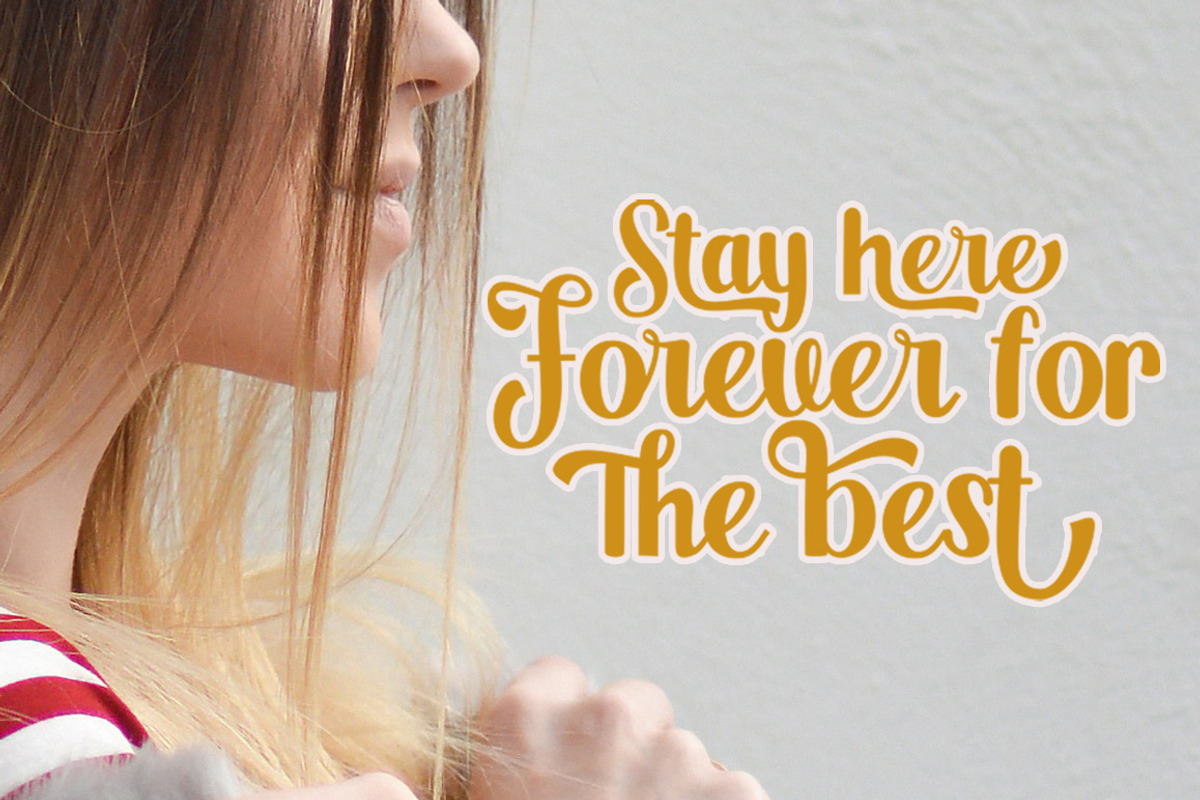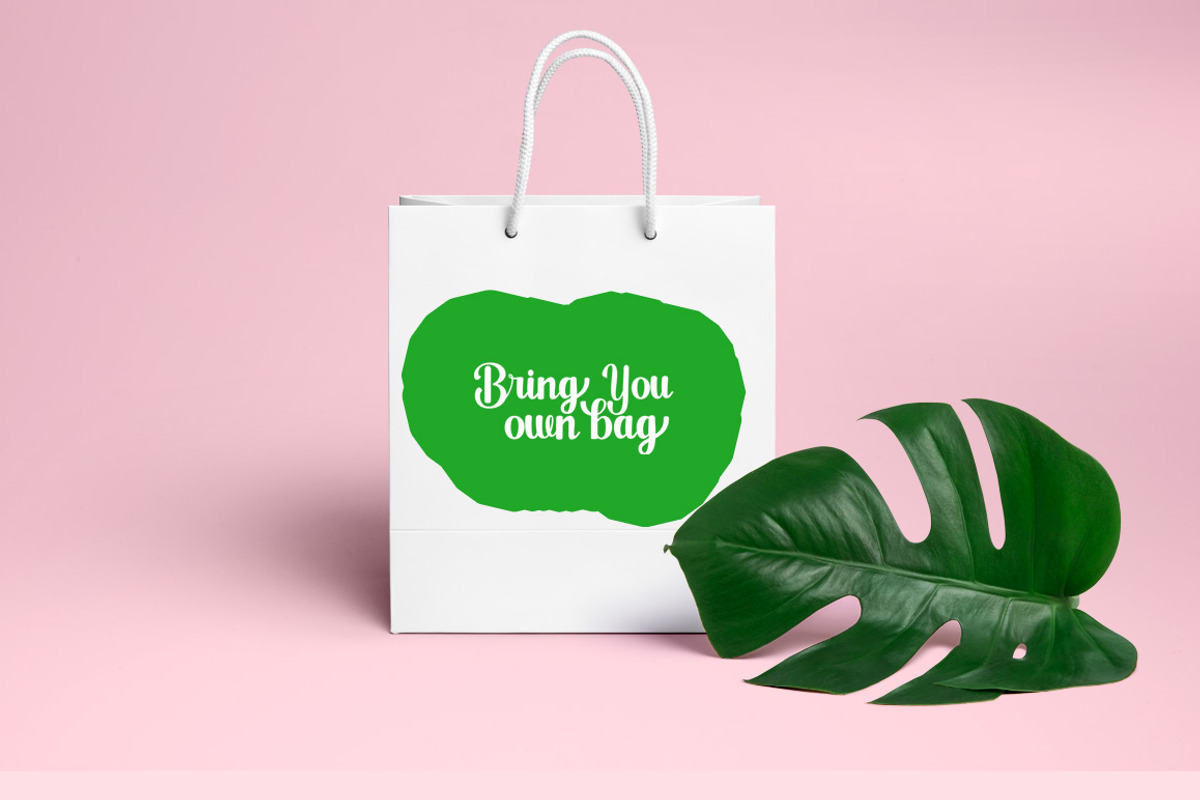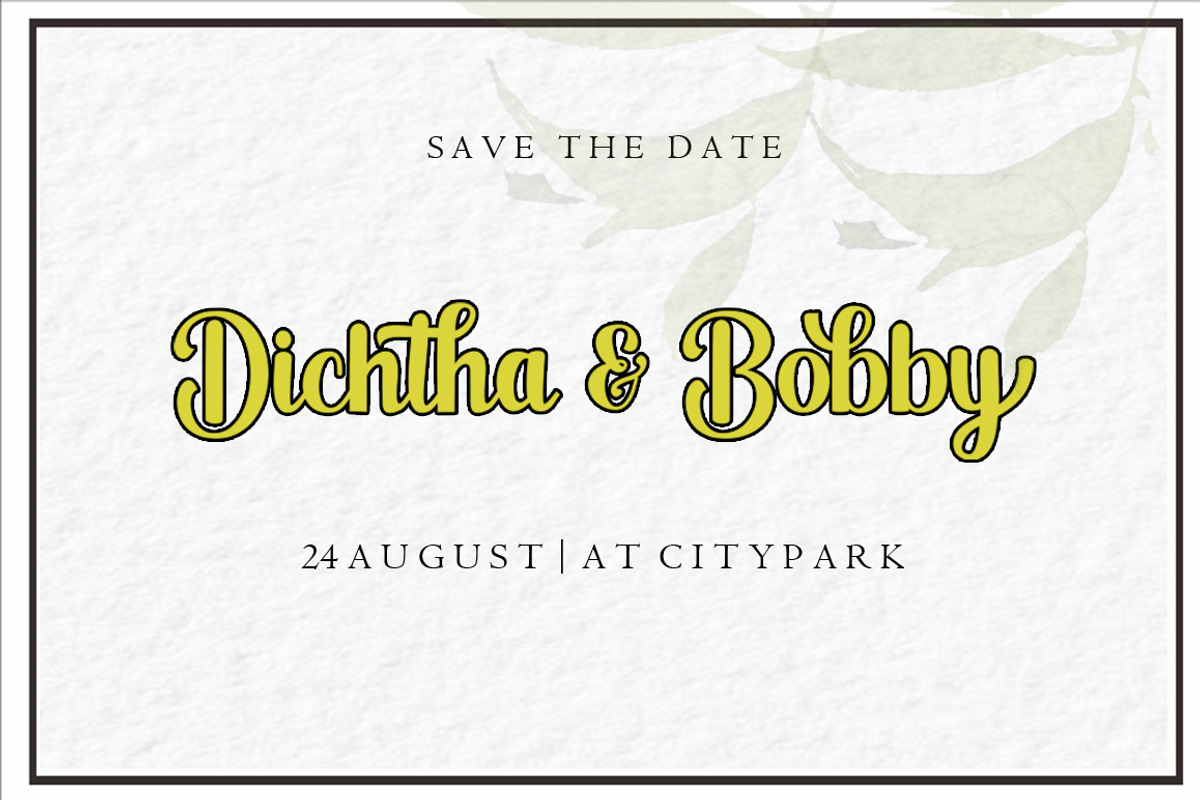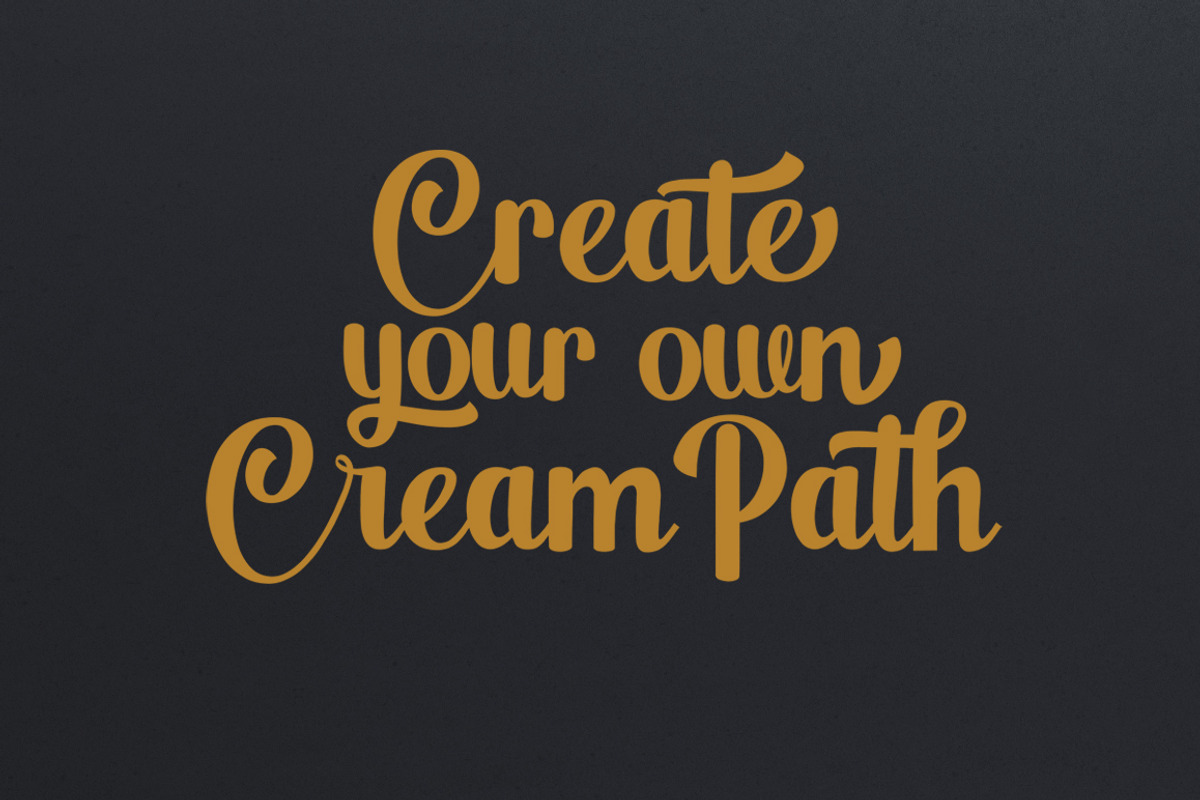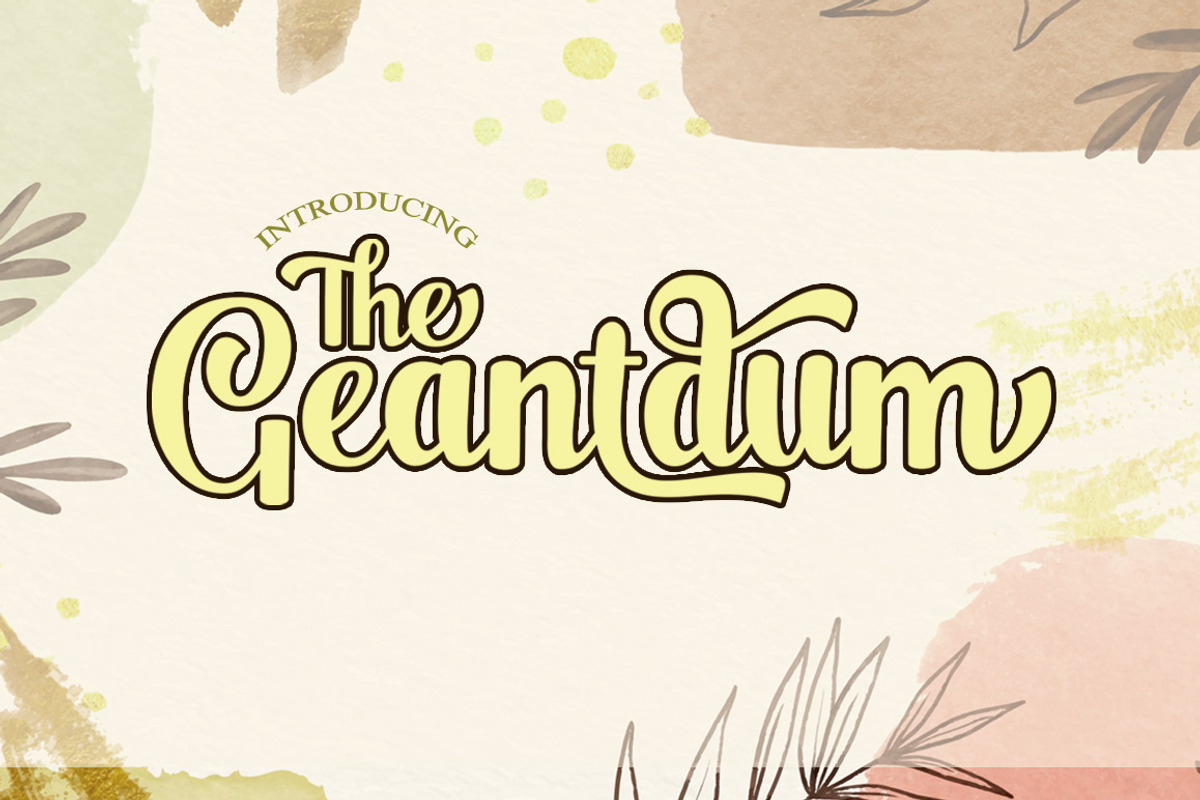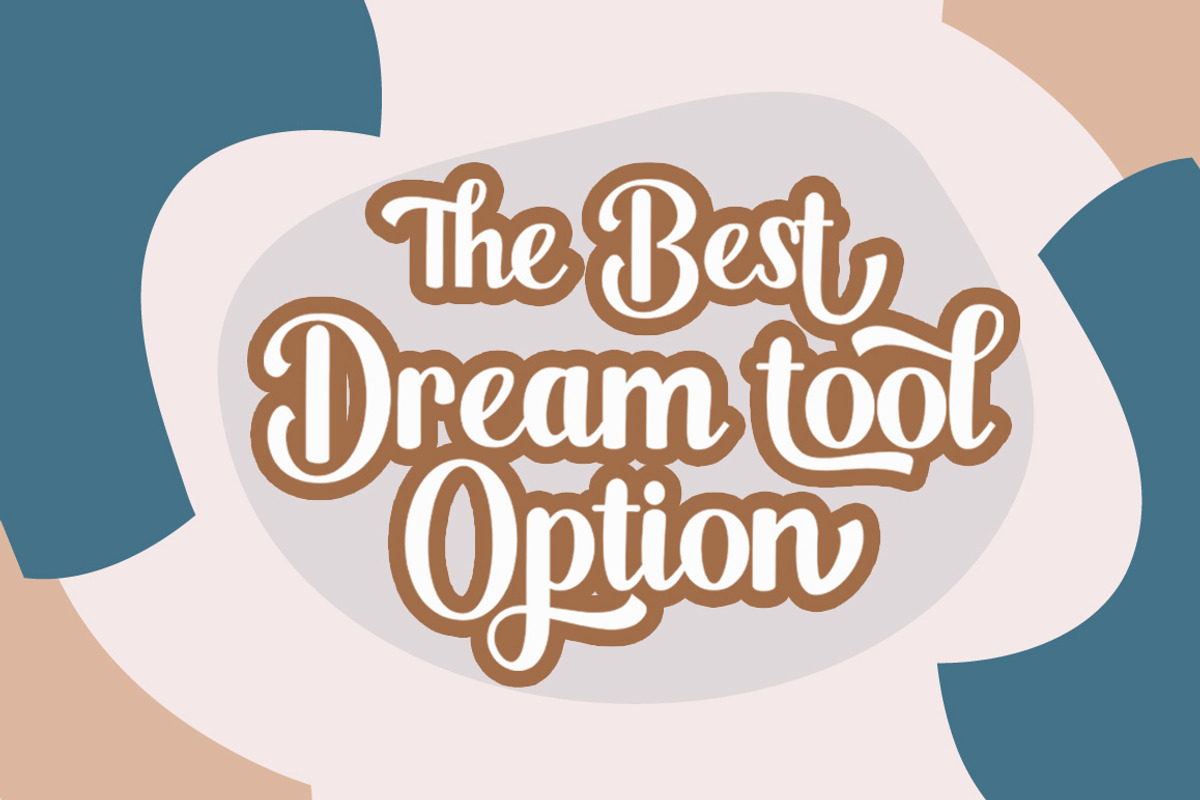
The Geantdum
The Geantdum Script is modern script font, every single letters have been carefully crafted to make your text looks beautiful. With modern script style this font will perfect for many different project ex: quotes, blog header, poster, wedding, branding, logo, fashion, apparel, letter, invitation, stationery, etc.
The Geantdum Script including alternate glyph and beautiful swirl.